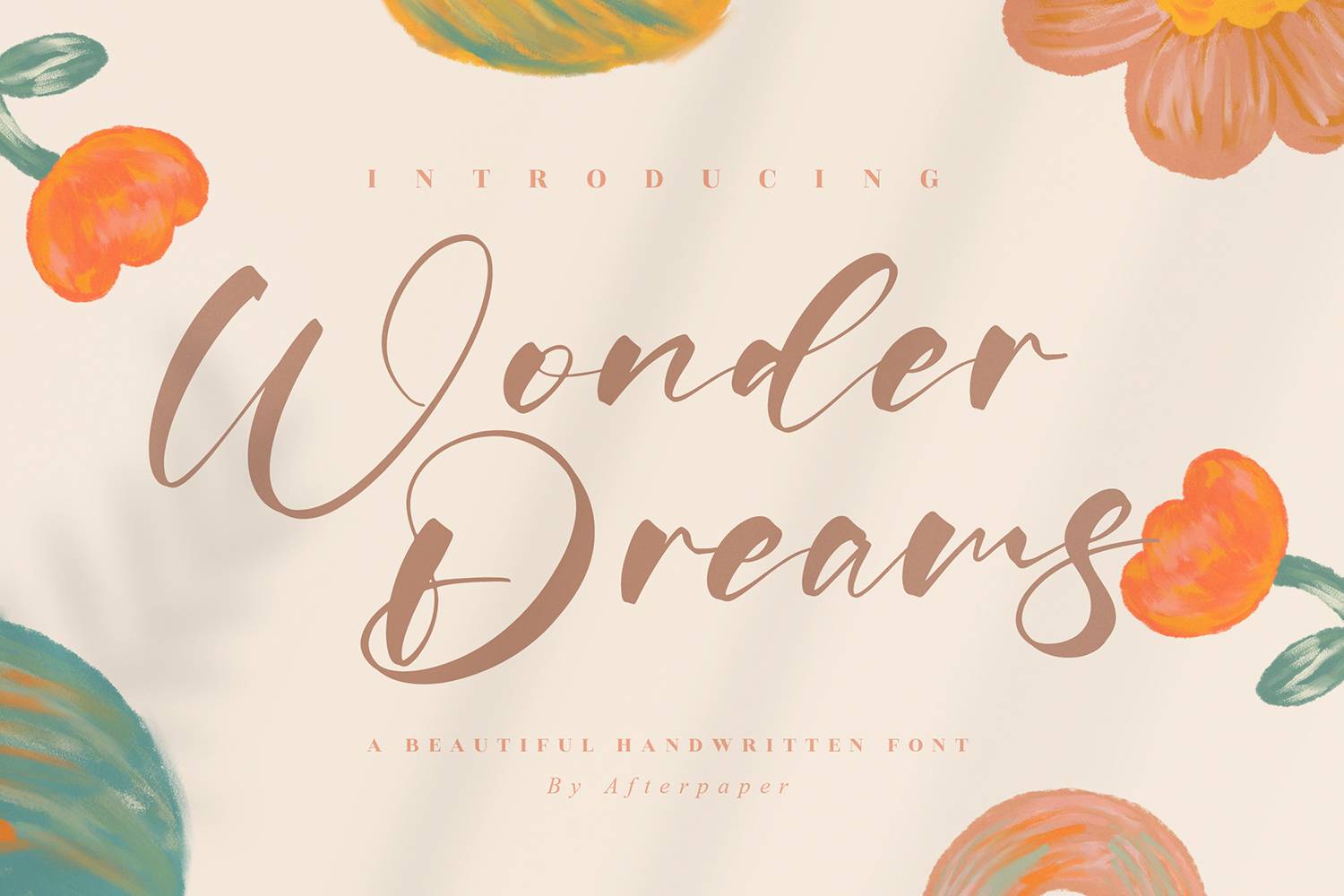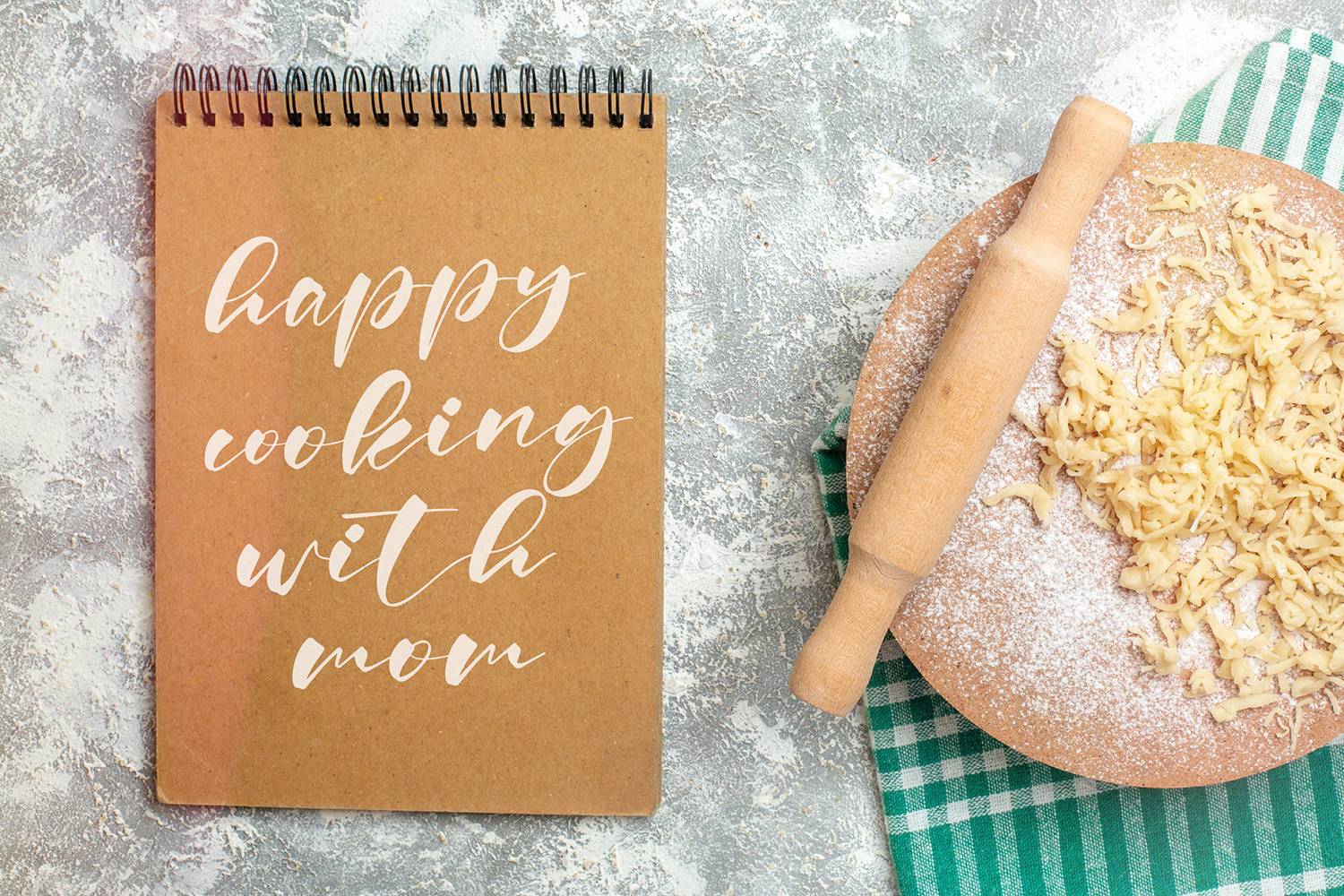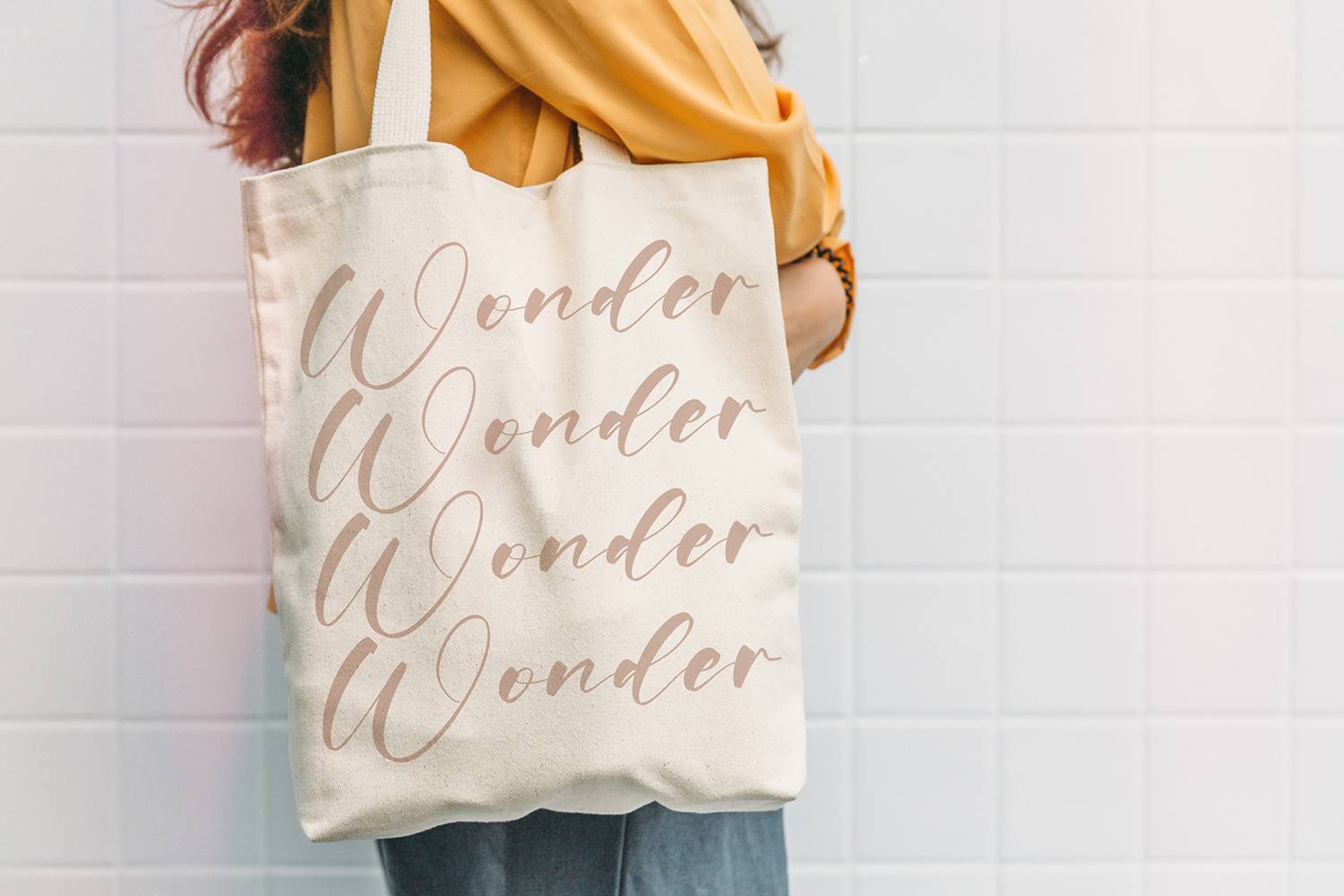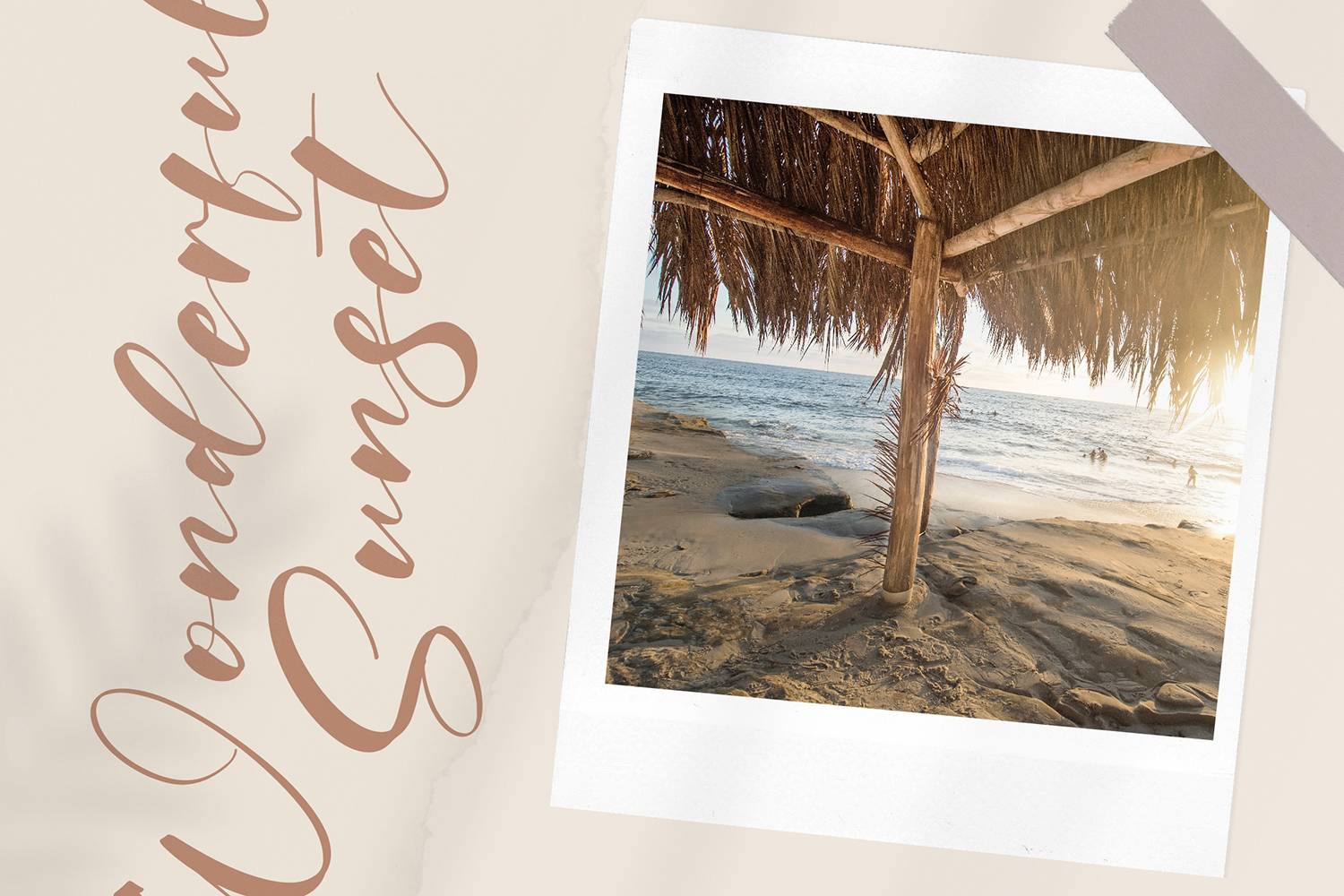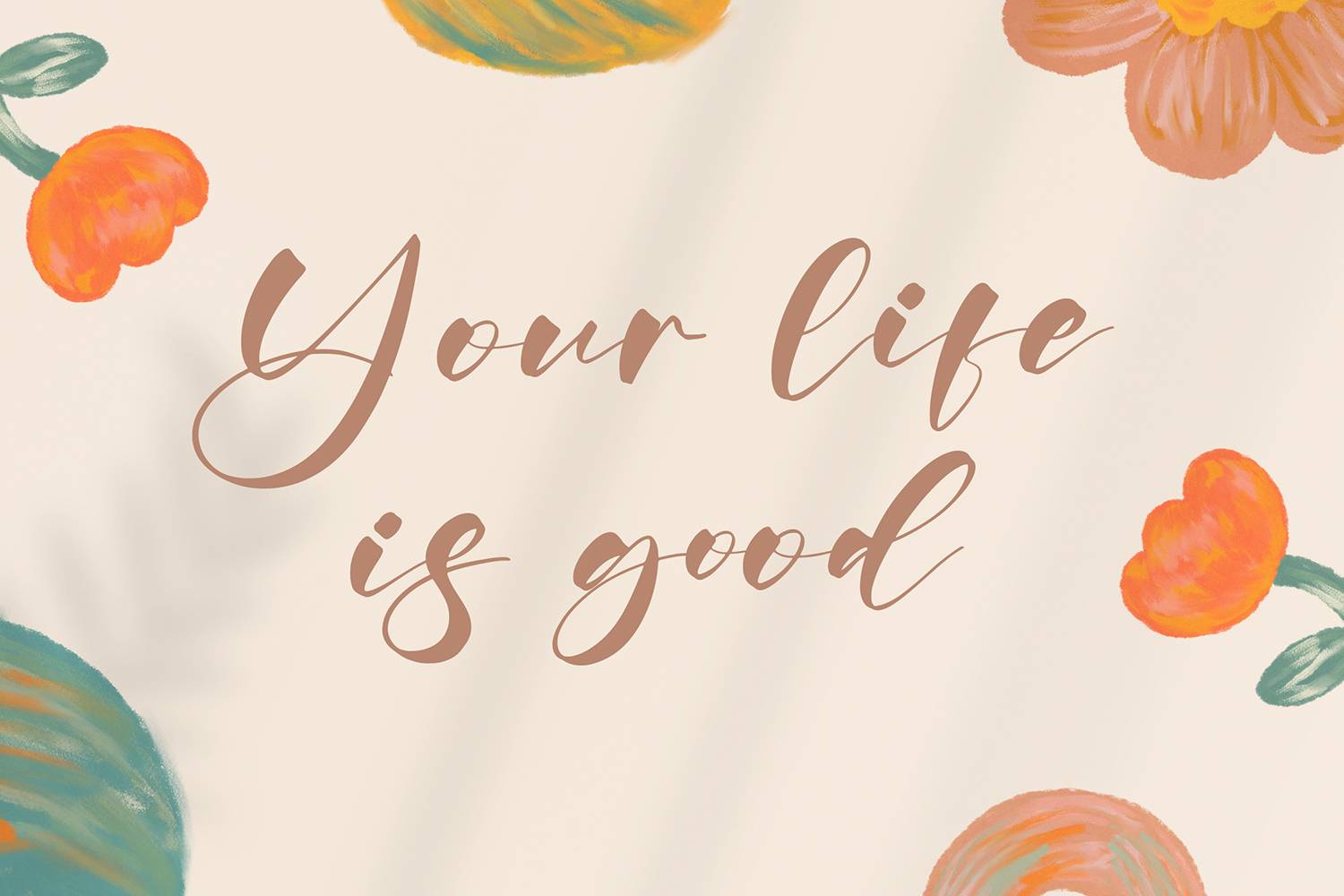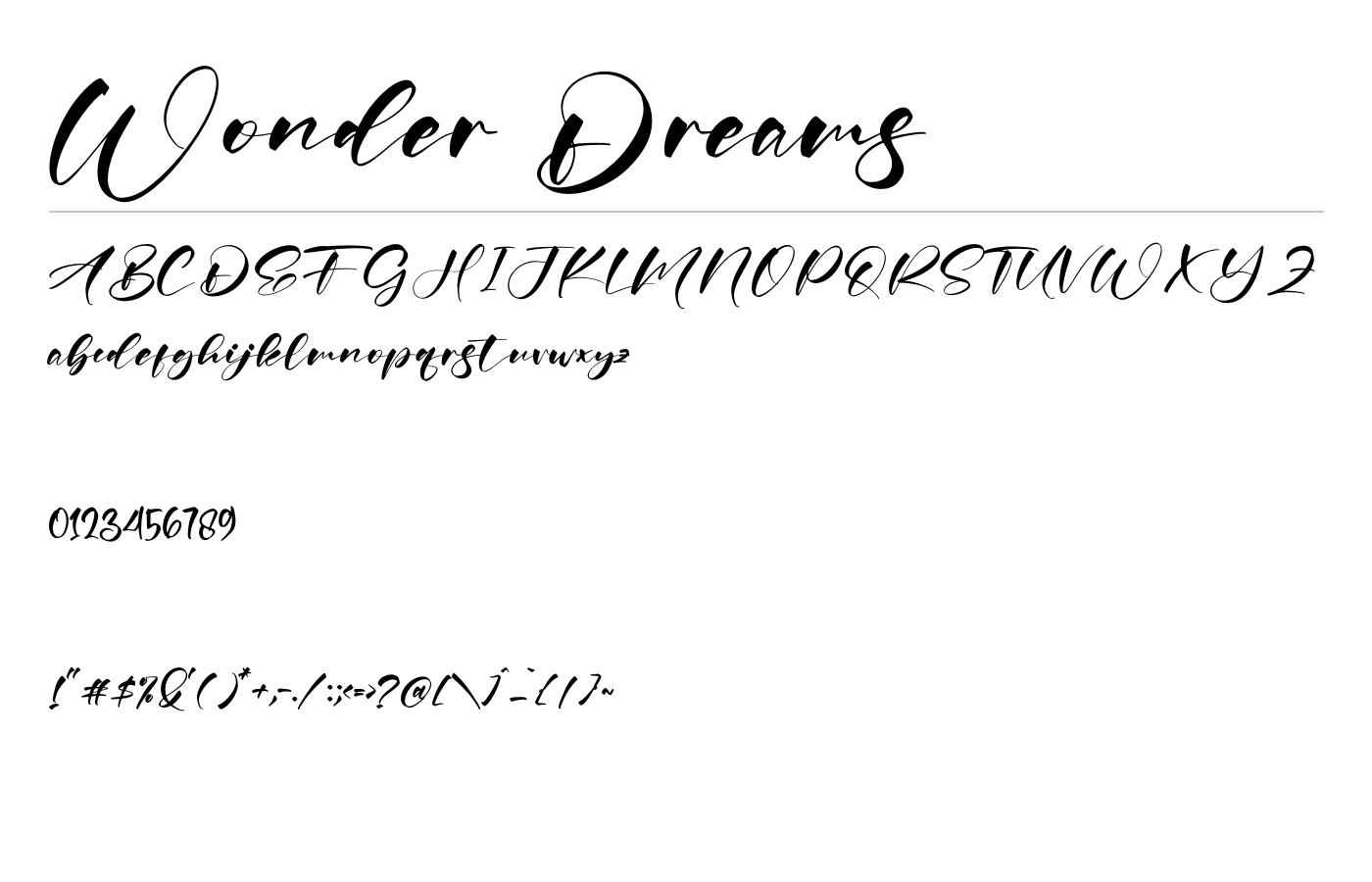
Wonder Dreams is an elegant script font with fluid, calligraphic strokes that blend thick and thin lines for a graceful, handcrafted feel. Its flowing letterforms, delicate curves, and varied weight make it perfect for luxury branding, invitations, and artistic designs that aim to evoke romance and sophistication. This font shines best in headlines and decorative text where its stylish personality can truly stand out.
Wonder Dreams Font
About Wonder Dreams Font